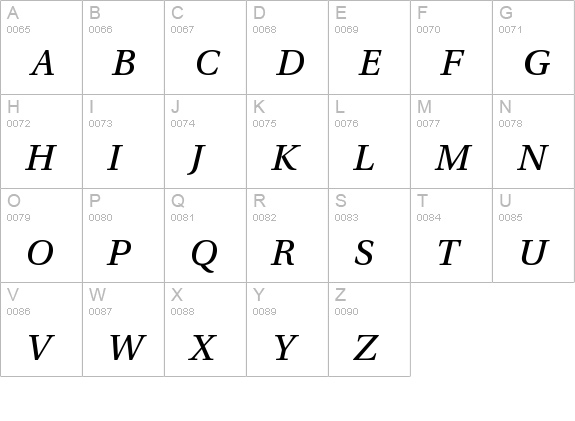
Utopia Std Caption Italic is a distinctive, italic variant in the Utopia typeface family \xE2\x80\x94 well suited to design and typography projects.
Introducing Utopia Std Caption Italic, a stunning and versatile font that effortlessly marries elegance with legibility. This enchanting typeface boasts a harmonious balance of delicate curves and refined strokes, creating a captivating aesthetic that is sure to leave a lasting impression on any design project. Utopia Std Caption Italic exudes a sense of sophistication and grace, making it the perfect choice for a wide range of applications. Whether you're designing a high-end magazine layout, creating eye-catching branding materials, or crafting beautiful invitations, this font will elevate your designs to new heights. The italicized variation of Utopia Std Caption adds a touch of flair and dynamism to your typography, allowing for a unique and expressive visual experience. Its graceful slant brings a sense of movement and energy to your text, making it ideal for adding emphasis and conveying a sense of style. But what sets Utopia Std Caption Italic apart is not just its inherent beauty, but also its accessibility. This font is freely available to download at FontsMarket.com, ensuring that designers of all backgrounds and budgets can enjoy its exquisite qualities. Now, you can add a touch of elegance to your projects without breaking the bank. So, whether you're a seasoned designer or just starting out, Utopia Std Caption Italic is a must-have addition to your font library. With its timeless appeal, effortless legibility, and the freedom to access it at your convenience, this font is sure to become a cherished tool in your creative arsenal. Download Utopia Std Caption Italic today and unlock a world of endless design possibilities.